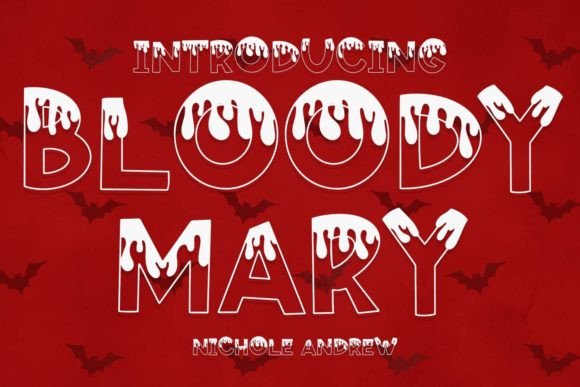
The Bloody Mary Font: A Spooky Addition to Your Halloween Projects
As a designer, I’ve had my fair share of late nights searching for the perfect font to complete a project. But one Halloween season, I stumbled upon a font that made my heart skip a beat – Bloody Mary. This dripping Halloween display font has become a staple in my design toolkit, and I’m excited to share its awesomeness with you!
My First Encounter with Bloody Mary
I remember working on a Halloween-themed t-shirt design for a client who wanted something spooky and eye-catching. I scoured the internet for the perfect font, but nothing seemed quite right. That was until I discovered Bloody Mary. Its dripping, blood-red letters immediately caught my attention, and I knew I had found the perfect fit. The design turned out amazing, and my client loved it!
An Honest Review of Bloody Mary
- ✨ Unique and eye-catching design: Bloody Mary stands out from other fonts with its dripping, blood-red letters that scream Halloween.
- ✅ Perfect for spooky projects: Whether you’re designing a t-shirt, a poster, or a social media graphic, Bloody Mary adds a touch of spookiness that’s sure to grab attention.
- 🎃 Easy to use: Bloody Mary is a straightforward font to work with, and its OpenType features make it easy to customize.
While Bloody Mary is an amazing font, it’s not without its quirks. Here are a few things to keep in mind:
- 🤔 Limited use cases: Bloody Mary is a display font, so it’s best used for headlines or titles. It might not be the best choice for body text.
- ⚠️ Legibility: Some of the letters, like the lowercase “l” and “t”, can be a bit tricky to read. Use it in large sizes or for short phrases to ensure legibility.
Bloody Mary comes with a range of OpenType features and glyphs that can add more variety to your designs. Here are a few tips on how to access and use them:
- Experiment with different glyphs and stylistic alternates to add more personality to your text.
The Backstory Behind Bloody Mary
The story behind Bloody Mary is shrouded in mystery, but legend has it that the font was inspired by the classic Halloween tale of Bloody Mary, a ghostly figure who appears in mirrors. The font’s designer wanted to capture the spooky essence of this legend and create a font that would make designers’ hearts skip a beat.
Q: What is Bloody Mary font?
A: Bloody Mary is a dripping Halloween display font that’s perfect for creating spooky designs.
Q: Is Bloody Mary easy to read?
A: Bloody Mary is a display font, so it’s best used in large sizes or for short phrases. Some letters, like the lowercase “l” and “t”, can be a bit tricky to read.